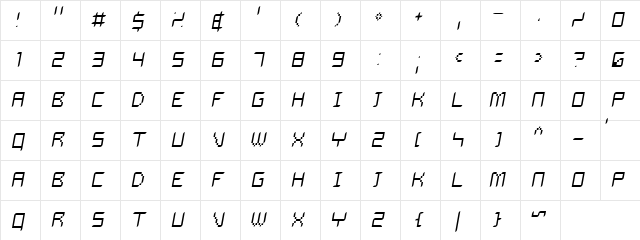
Complete Delilah ThinOblique glyph index. Displaying only characters natively supported by Delilah ThinOblique font.
Delilah is a composed and adaptable typeface that performs quietly and consistently across a wide range of design contexts. The slanted form adds forward momentum and visual energy. Its slender proportions lend an understated elegance to any composition.
Pro Tip: Use Delilah for emphasis, pull quotes, and subheadings where its slanted energy can add rhythm to the layout.